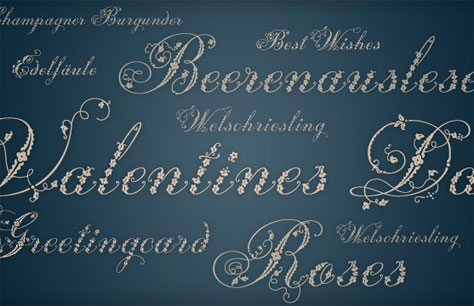
Hath There E'er Been a Font So Fair?
While the word “Weingut” may not sound particularly lyrical to the ears of English speakers, the Weingut font family is certainly pleasing to the eyes. This decorative display typeface, created by Georg Herold-Wildfellner, blooms with delicate buds, leaves, and tendrils.